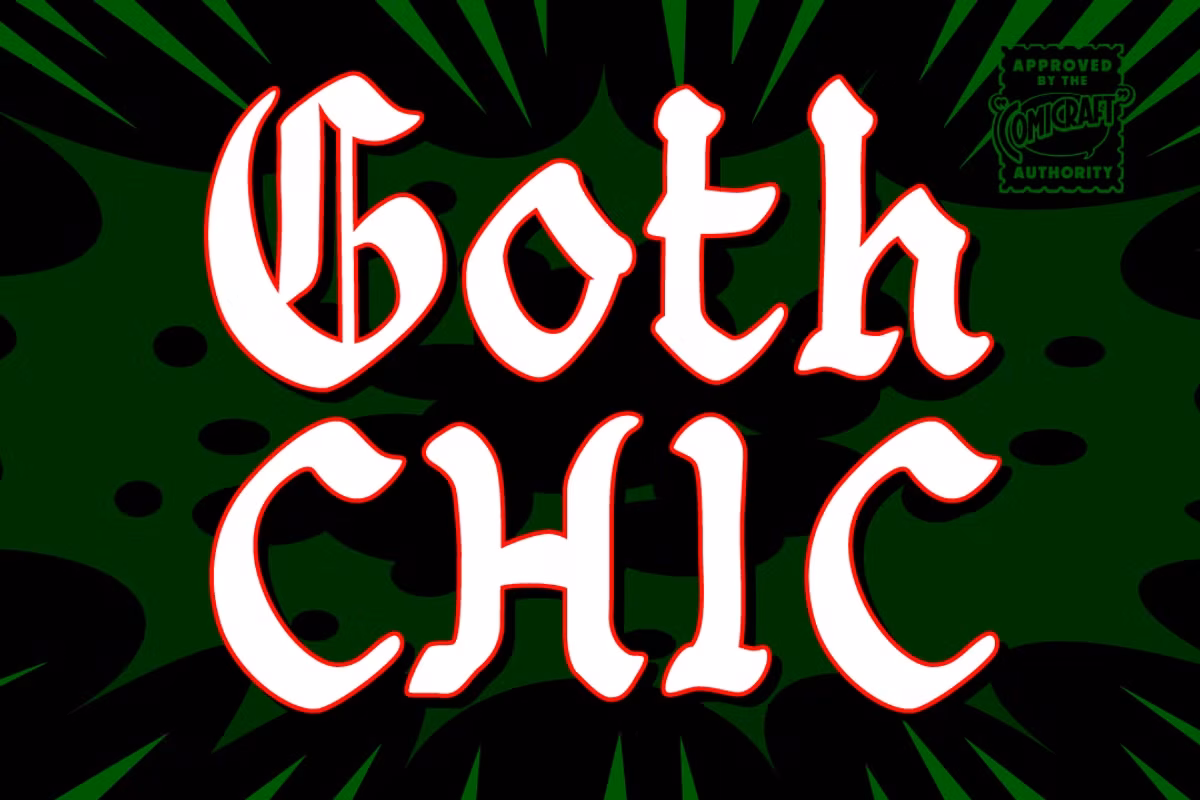
Dark, elegant, and fashion-forward, Goth Chic Font Free Download blends gothic influence with modern sophistication. This unique typeface is perfect for high-end branding, fashion editorials, music covers, posters, and alternative-themed design projects that call for dramatic flair and timeless style.
With sharp serifs, striking contrast, and intricate curves, Goth Chic evokes a mysterious yet luxurious aesthetic. It captures the essence of gothic romance while remaining sleek and contemporary—ideal for designers looking to make a bold statement.